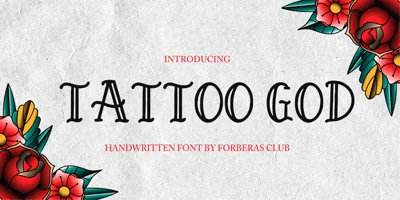
Tattoo God Font
The Tattoo God Font is a bold and edgy display typeface, specifically designed to capture the authentic aesthetic of traditional tattoo artistry, often with a gothic or old-school vibe. Imagine its commanding characters gracing custom tattoo designs for clients, adding a powerful and rebellious edge to motorcycle club branding, or creating striking headlines for rock band merchandise and heavy metal album covers. Its robust construction, often with intricate flourishes, sharp serifs, or a hand-drawn feel, also makes it an excellent choice for unique apparel design, impactful social media graphics that demand attention, and any design where a strong, unapologetic, and unforgettable visual statement is paramount. Whether you're aiming for a gritty, vintage look or a raw, artistic aesthetic, Tattoo God Font delivers with its unmistakable personality, ensuring your visuals are both intriguing and truly memorable.
What makes Tattoo God Font so exciting is its audacious ability to infuse designs with immediate personality and an unbridled sense of creative freedom, directly translating the powerful visual language of tattoo culture. In a visual landscape often saturated with conventional or polished designs, this font offers a refreshing dive into raw, expressive artistry and bold individuality. It’s more than just a typeface; it’s a design statement that can instantly convey an intense mood, a disruptive attitude, or a fascinating sense of urban artistry and confidence. Tattoo God Font offers designers the opportunity to create visuals that are both visually aggressive and remarkably unique, making it an invaluable asset for those looking to communicate a sense of power, authenticity, and a powerful, unconventional style that resonates deeply. For truly impactful designs, explore the Tattoo God Font.
The Tattoo God Font family is typically structured to offer a range of styles that amplify its edgy and impactful appeal. While the primary Tattoo God Regular typeface (which inherently features a raw, hand-painted or gothic quality), you might find companion styles such as a more impactful Tattoo God Bold for even stronger emphasis, or perhaps Tattoo God Outline or Tattoo God Textured versions to add different visual dimensions and further enhance its raw or distressed aesthetic. Given its display nature, the family may also include unique ligatures and alternate characters that allow for greater customization, mimicking the natural variations and spontaneous feel of true hand-lettered tattoos. These diverse family members provide designers with the flexibility to establish a clear typographic hierarchy and maintain a consistent, high-impact, and authentically artistic aesthetic across all elements of their project, from dominant headlines to supporting graphic elements.